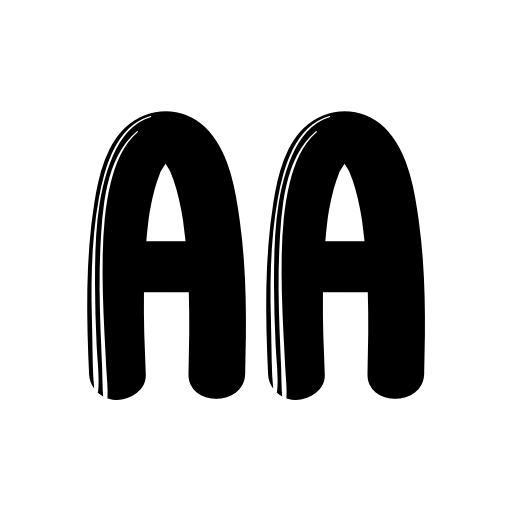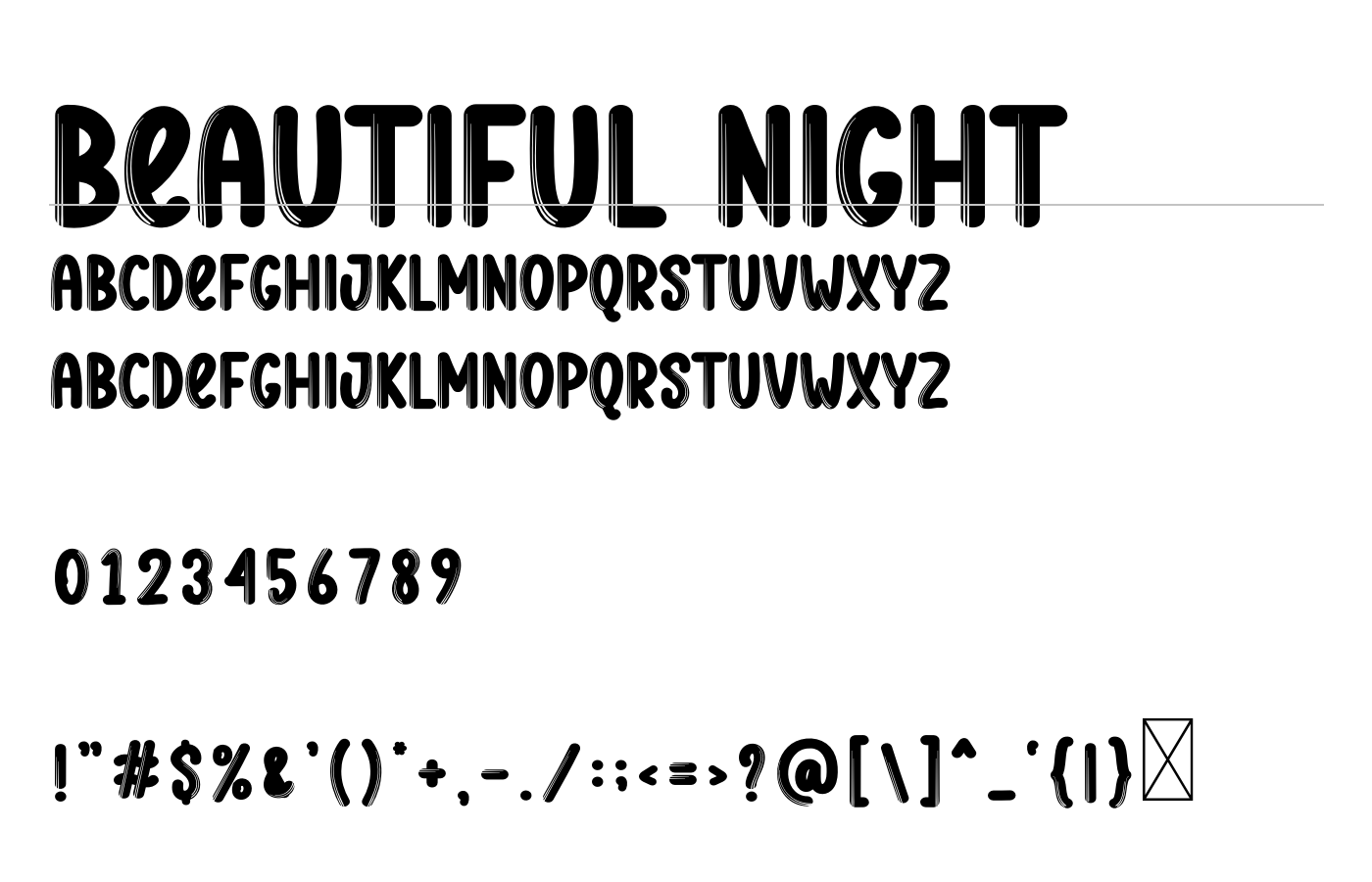
Beautiful Night is a playful, bold sans serif font with rounded edges and a lively, hand-drawn feel. Its moderately tall, condensed letterforms and subtle stroke contrast give it a friendly yet dynamic personality, making it perfect for fun branding, posters, and eye-catching headlines. This font works well where a creative, informal vibe is desired, adding charm and energy to designs.
Beautiful Night Font
About Beautiful Night Font